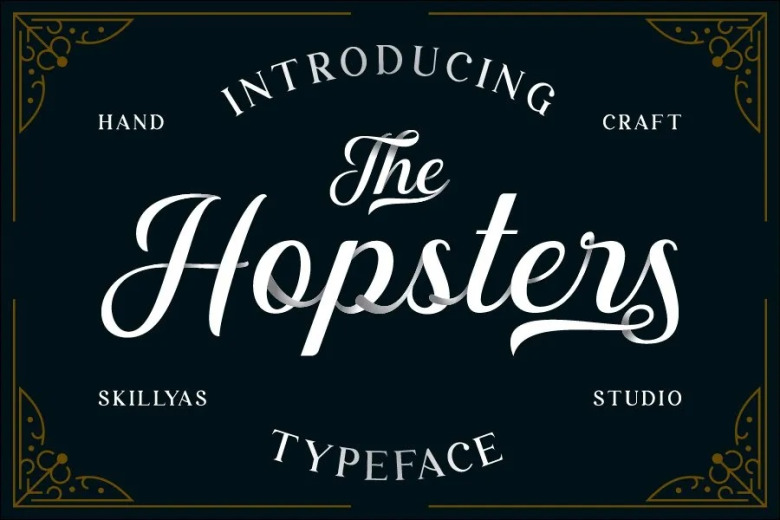
Hopsters Font
Hopster is a beautiful and refined script font calligraphy with distinctive points and beautiful swashes, and it has a classy, elegant, and modern type with excellent continuity flow. Perfect for design logos, branding, invitations, stationery, wedding designs, Instagram posts, and much more! are powered by PUA Unicode – so that all alternative characters available can be easily accessed.
Hopsters Calligraphy Script Font